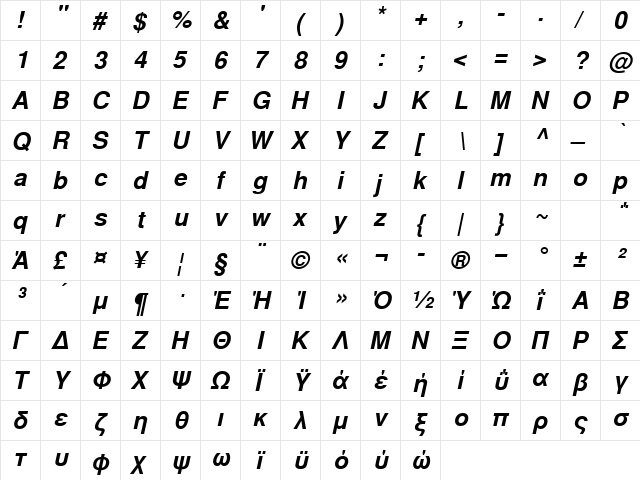
NimbusSanLGR Bold Italic Font Preview
NimbusSanLGR Bold Italic
Design Context for NimbusSanLGR Typeface
NimbusSanLGR is a composed and adaptable typeface that performs quietly and consistently across a wide range of design contexts. Its italic angle brings a sense of urgency and motion to the letterforms. Its bold stroke weight gives it real presence on the page.
Pro Tip: Try NimbusSanLGR for annotation and caption copy alongside an upright companion — the contrast in angle creates a dynamic but ordered typographic system.